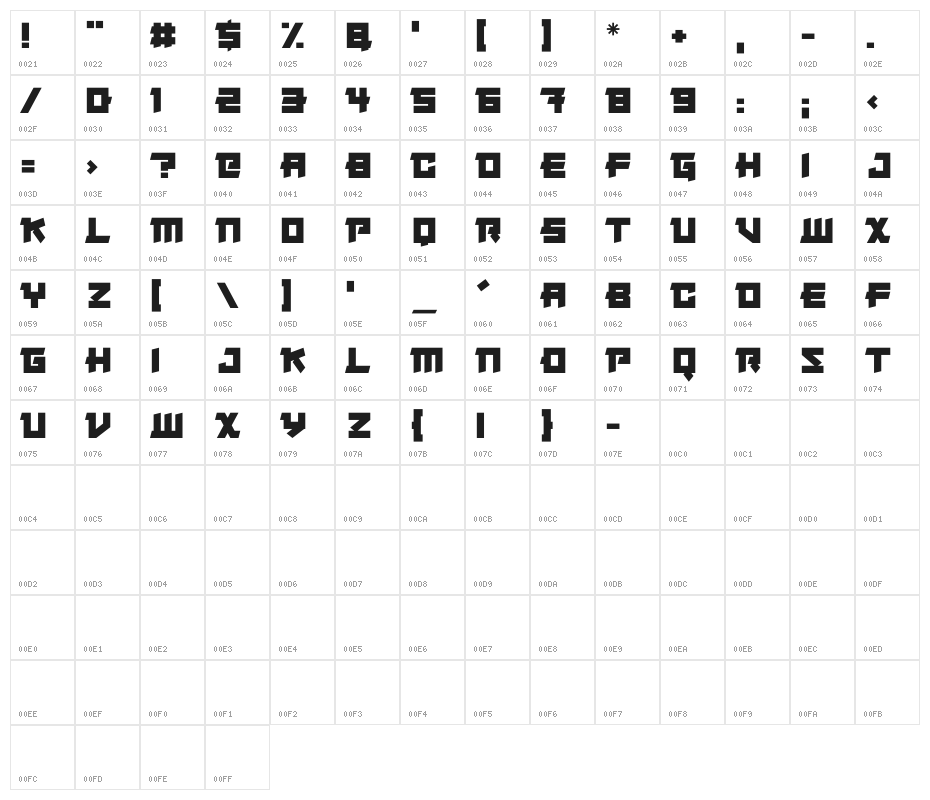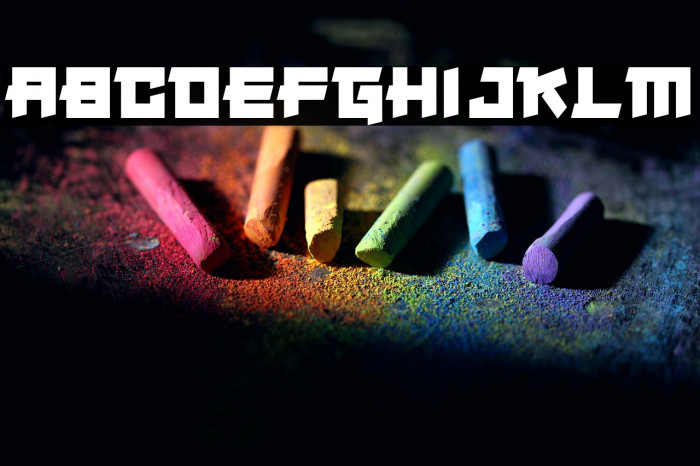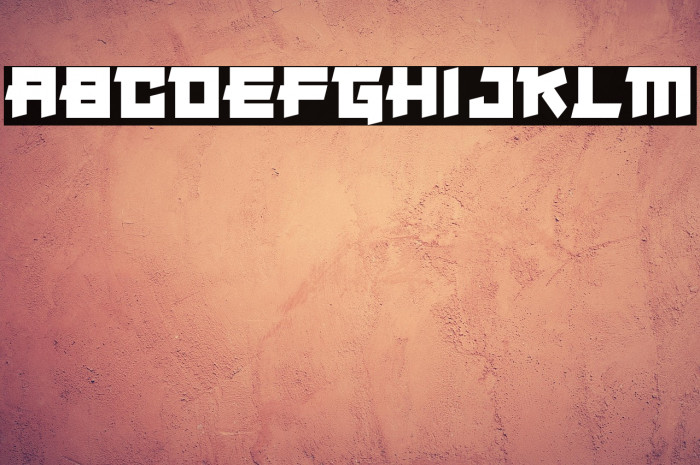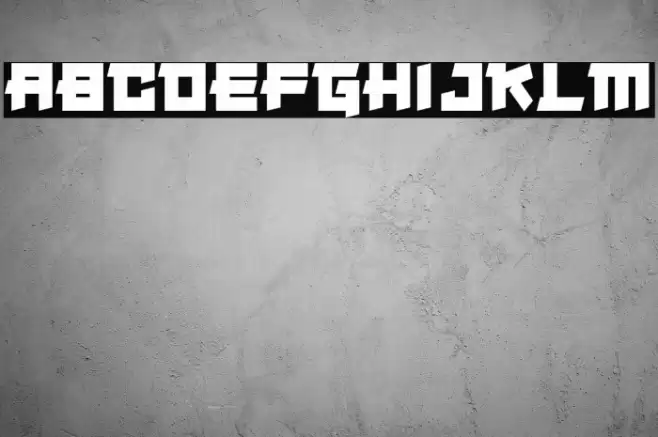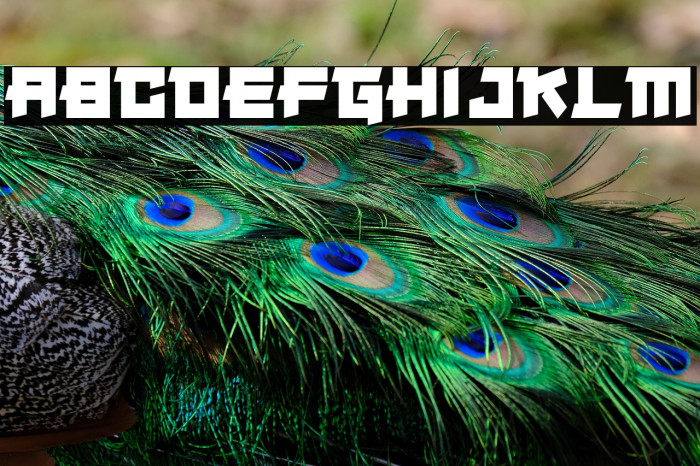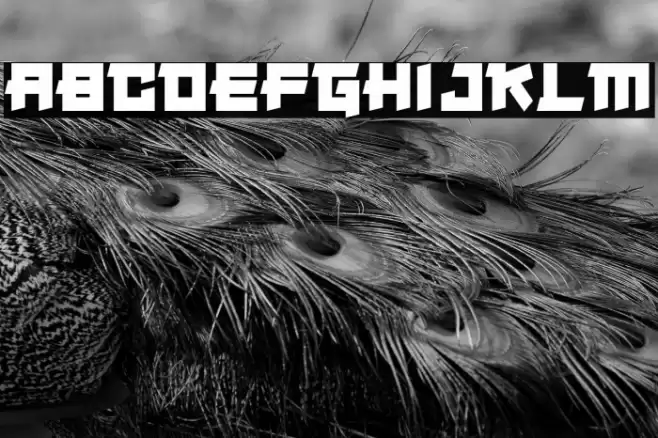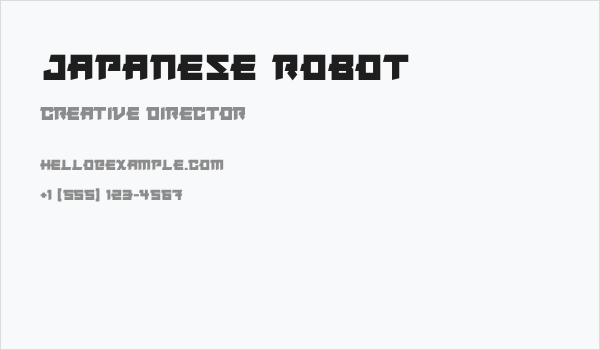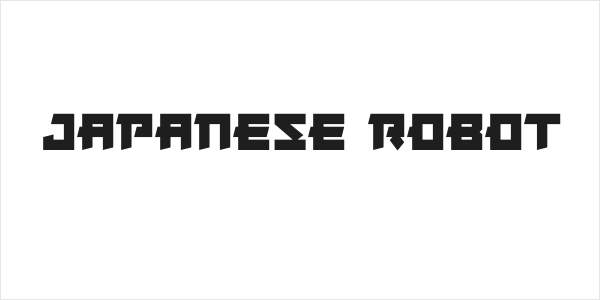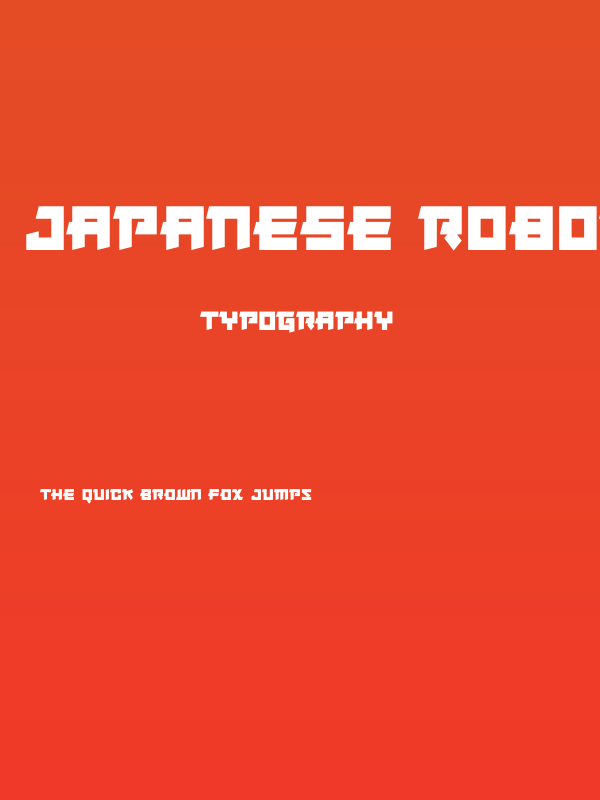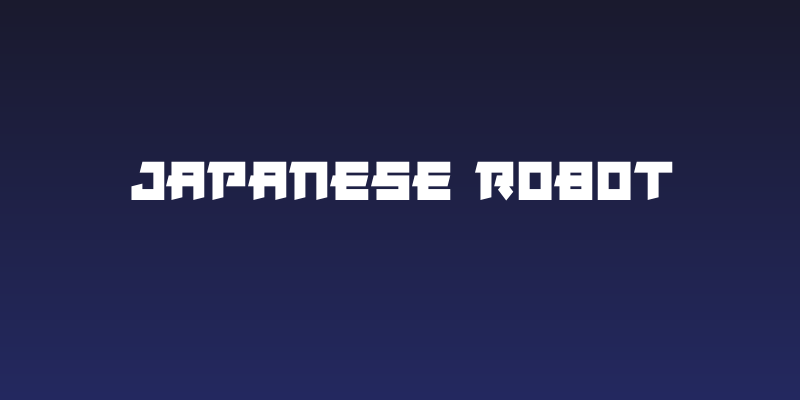
Japanese Robot Font
Japanese Robot Description
This font features a bold, futuristic design with sharp, angular edges and a geometric structure. The characters are blocky and robust, reminiscent of robotic or mechanical aesthetics, which gives it a distinct, tech-inspired look. The uppercase and lowercase letters share a consistent style, maintaining uniformity across the alphabet. Numbers and special characters are designed with the same boldness and angularity, ensuring a cohesive appearance throughout. The font's unique style makes it stand out, ideal for projects that require a strong, modern, and industrial feel.
| Proposed Projects | Ideal for tech-themed posters, video game graphics, sci-fi book covers, and branding for technology companies. |